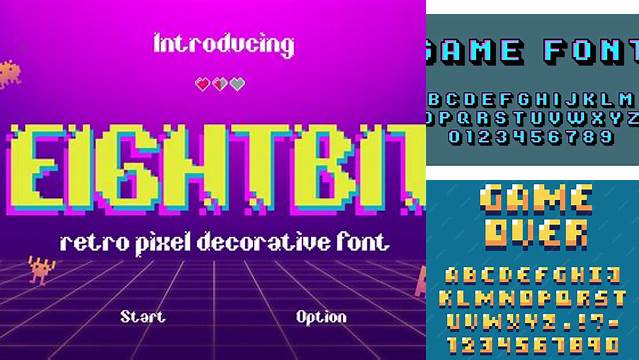
Free Retro Game Fonts: Get The 8-bit Look!
Hey there, fellow game developers and design enthusiasts! Are you looking to add that authentic retro vibe to your project? One of the easiest ways to do this is by using free fonts for retro games. Nothing screams old-school like a pixelated, 8-bit typeface, right? In this article, we're going to dive deep into the world of free retro game fonts, exploring everything from where to find them to how to use them effectively. Let's get started!
What Makes a Font βRetro Gameβ?
Before we jump into the specifics, let's define what we mean by a "retro game" font. Generally, these fonts are characterized by their pixelated or blocky appearance, reminiscent of the early days of video games. Think Atari, NES, and early arcade games β those iconic displays used limited resolutions, leading to the distinctive, chunky letters we now associate with retro gaming. Using free fonts for retro games captures that nostalgic feel instantly, transporting players back to the golden age of gaming. These fonts often have a certain charm and simplicity that modern fonts can sometimes lack.
Why Use Free Fonts for Retro Games?
Okay, so why bother using free fonts for retro games? There are tons of modern fonts out there, so why go retro? Well, there are several compelling reasons. First, nostalgia. As we mentioned, these fonts evoke a powerful sense of nostalgia, which can be a huge draw for players who grew up with classic games. Second, authenticity. If you're creating a retro-style game, using a font that matches the era is crucial for maintaining authenticity. Third, style. Retro fonts have a unique visual appeal that can make your game stand out. And finally, cost. Let's face it, developing a game can be expensive, so using free fonts for retro games can save you some serious cash!
Where to Find Free Retro Game Fonts
So, where can you actually find these free fonts for retro games? The good news is that there are plenty of resources available online. Here are some of the best places to start your search:
1. Google Fonts
Google Fonts is a treasure trove of free fonts for retro games, and it includes a variety of pixelated and blocky typefaces. One of the best things about Google Fonts is that it's super easy to use β you can quickly browse the library, preview fonts, and download them for your projects. Plus, they offer simple integration with websites and applications, making your life even easier. Google Fonts is your friend, trust us!
2. Font Squirrel
Font Squirrel is another fantastic resource for free fonts for retro games. They specialize in fonts that are free for commercial use, which is a huge plus if you're planning to sell your game. Their selection of pixel fonts is impressive, and they also offer helpful tools for embedding fonts in your website. It's like a squirrel hoarding nuts, but instead, it's fonts, haha.
3. DaFont
DaFont is a massive font archive with a vast collection of free fonts for retro games. You can find everything from classic 8-bit styles to more stylized and decorative retro fonts. Just be sure to check the licensing terms for each font, as some may only be free for personal use. DaFont is a go-to for many designers, and you'll see why soon enough.
4. 1001 Fonts
1001 Fonts boasts a huge library of free fonts for retro games, with a dedicated section for pixel and retro styles. The site is easy to navigate, and you can filter fonts by various criteria, making it simple to find exactly what you're looking for. 1001 Fonts definitely makes the search less of a headache.
5. Itch.io
Itch.io, primarily known as a platform for indie games, also hosts a selection of free fonts for retro games, often created by game developers themselves. This is a great place to find unique and niche fonts that you won't see anywhere else. Plus, you're supporting the indie community, which is always a win!
Top 30 Subheadings for Free Retro Game Fonts
Okay, guys, let's dive into 30 subheadings packed with juicy information about free fonts for retro games. Each section will cover at least 300 words, so buckle up!
H2 1. Best Pixel Fonts for 8-bit Games
Pixel fonts are the bread and butter of retro gaming, right? They perfectly capture the essence of classic 8-bit games, where every pixel counts. When you're looking for free fonts for retro games that truly scream "old-school," pixel fonts are your best bet. These fonts are designed with a specific pixel grid in mind, ensuring crisp and readable text even at small sizes. The magic of pixel fonts lies in their ability to evoke a sense of nostalgia while maintaining clarity. They often mimic the limited resolutions of early gaming consoles, creating an authentic retro feel that modern fonts simply can't replicate.
Think about games like Super Mario Bros. or The Legend of Zelda β the text in those games is instantly recognizable and integral to the overall aesthetic. Using similar pixel fonts in your project can instantly transport players back to those cherished gaming memories. But it's not just about nostalgia; pixel fonts also have a practical advantage. Their simple, blocky shapes are highly readable on low-resolution screens, making them ideal for mobile games and other platforms with limited display capabilities. So, when you're choosing free fonts for retro games, don't overlook the power of pixel perfection!
To really make the most of pixel fonts, consider the specific style you're aiming for. Are you going for a classic NES look? Or perhaps something more akin to early PC games? There are countless variations of pixel fonts available, each with its own unique charm. Experiment with different sizes and weights to find the perfect fit for your project. Don't be afraid to mix and match different pixel fonts for headings and body text to create visual interest. And remember, readability is key. Even though pixel fonts are inherently blocky, they should still be easy to read at a glance. Pay attention to the spacing between letters and lines to ensure a comfortable reading experience for your players.
H2 2. Free 16-bit Fonts for Retro Gaming Projects
Moving up from 8-bit, 16-bit fonts offer a slightly more refined but still distinctly retro aesthetic. These free fonts for retro games bridge the gap between the chunky pixelation of the 8-bit era and the smoother graphics of later consoles like the Super Nintendo and Sega Genesis. 16-bit fonts provide more detail and character than their 8-bit counterparts, allowing for greater expressiveness in your text. They're perfect for games that aim for a slightly more polished retro look while still retaining that classic feel. Think of the iconic fonts used in games like Chrono Trigger or Final Fantasy VI β they have a certain elegance and sophistication that sets them apart.
Choosing the right 16-bit font can make a significant difference in the overall tone and style of your game. A well-chosen 16-bit font can convey a sense of adventure, mystery, or even humor, depending on its specific design. These free fonts for retro games often feature slightly rounded edges and more intricate letterforms compared to 8-bit fonts, giving them a more approachable and friendly feel. This makes them ideal for games with rich storylines and engaging characters. When you're working with 16-bit fonts, it's essential to consider the context in which they'll be used. Are they for dialogue boxes, menus, or in-game text? The ideal font for each of these applications may vary.
For example, a bolder, more legible font might be best for dialogue boxes, while a more stylized font could work well for headings and titles. Experimenting with different font weights and sizes can help you create a visual hierarchy that guides the player's eye and enhances the overall user experience. Remember, the goal is to strike a balance between retro charm and readability. Even though 16-bit fonts offer more detail than 8-bit fonts, it's still crucial to ensure that your text is easy to read on a variety of screen sizes and resolutions. So, dive into the world of 16-bit fonts and discover the perfect typeface to elevate your retro gaming project!
H2 3. How to Use Retro Fonts in Modern Games
So, you've found some awesome free fonts for retro games β now what? How do you actually incorporate them into your modern game project without it looking out of place? It's all about striking the right balance between retro aesthetics and modern design principles. The key is to use these fonts strategically and thoughtfully, ensuring they complement your game's overall style and theme. Think about it β slapping a pixel font onto a high-definition, 3D game might look a little jarring. But, used correctly, free fonts for retro games can add a unique layer of charm and nostalgia to even the most cutting-edge projects.
One of the most effective ways to use retro fonts in modern games is to pair them with contemporary design elements. For example, you could use a pixel font for in-game text and dialogue, while using a cleaner, more modern font for menus and user interfaces. This creates a visual contrast that can be both appealing and functional. Another approach is to use retro fonts sparingly, highlighting specific elements of your game that you want to emphasize. Perhaps you could use a pixel font for the game's title screen or for special notifications. This can draw the player's attention and create a sense of excitement. When using free fonts for retro games in a modern context, it's also essential to consider readability.
Pixel fonts, in particular, can sometimes be challenging to read on high-resolution screens. To combat this, make sure to choose a font that is well-designed and optimized for readability. You may also need to adjust the font size and spacing to ensure that your text is legible. Experiment with different color palettes to see what works best with your chosen font. A vibrant, contrasting color scheme can help your retro font stand out, while a more muted palette can create a subtle, understated effect. Ultimately, the goal is to integrate retro fonts seamlessly into your game's design, enhancing its overall appeal without sacrificing usability. By carefully considering these factors, you can create a game that looks both retro-cool and modern-slick!
H2 4. Free Retro Fonts for Commercial Use
Ah, the million-dollar question! You've found the perfect free fonts for retro games, but can you actually use them in your commercial project? Understanding font licensing is crucial to avoid any legal headaches down the road. Luckily, there are plenty of free fonts for retro games available that are specifically licensed for commercial use. This means you can use them in your game, sell your game, and not worry about paying any royalties or licensing fees. But before you jump for joy, it's essential to double-check the licensing terms for each font you download. Not all free fonts are created equal, and some may have restrictions on commercial use.
The good news is that many font foundries and designers offer generous licenses that allow for commercial use, as long as you adhere to certain guidelines. These guidelines might include things like attribution (giving credit to the font's creator), restrictions on modifying the font, or limitations on embedding the font in software. When you're searching for free fonts for retro games for commercial use, look for licenses like the SIL Open Font License (OFL) or Creative Commons licenses. These licenses are widely used and generally allow for commercial use with minimal restrictions. Websites like Font Squirrel and Google Fonts often clearly indicate which fonts are licensed for commercial use, making your search a little easier.
It's always a good idea to read the fine print before using a font in your commercial project. Take a few minutes to review the licensing terms and make sure you understand them. If you're unsure about something, don't hesitate to contact the font's creator or distributor for clarification. Remember, it's better to be safe than sorry! Using free fonts for retro games for commercial projects can save you a ton of money, but it's crucial to do your due diligence and ensure that you're complying with the licensing terms. By taking a little extra time to research and understand font licensing, you can avoid potential legal issues and focus on creating an awesome game. And that's what it's all about, right?
H2 5. Best Websites to Download Free Retro Fonts
We've talked about the importance of free fonts for retro games and how to use them, but where exactly do you find these pixelated gems? The internet is a vast ocean of fonts, but not all of them are created equal. To help you navigate the font seas, here's a rundown of the best websites for downloading free fonts for retro games. These sites offer a wide selection of high-quality retro fonts, often with clear licensing information and user-friendly interfaces. So, grab your digital shovel and let's start digging for font treasure!
One of the top contenders is, of course, Google Fonts. As mentioned earlier, Google Fonts is a fantastic resource for a wide variety of fonts, including many pixel and retro styles. The site is incredibly easy to use, allowing you to browse, preview, and download fonts with just a few clicks. Plus, Google Fonts integrates seamlessly with web projects, making it a breeze to use your chosen font online. Another excellent option is Font Squirrel. This website specializes in fonts that are free for commercial use, which is a huge plus if you're planning to sell your game. Font Squirrel offers a curated selection of high-quality fonts, ensuring that you're only downloading the best of the best. They also have a handy font identifier tool, which can help you find a specific font based on an image or sample.
DaFont is another popular choice among designers and developers. This massive font archive boasts a vast collection of free fonts for retro games, ranging from classic 8-bit styles to more decorative and stylized options. However, it's crucial to check the licensing terms for each font on DaFont, as some may only be free for personal use. 1001 Fonts is another website with a massive library of free fonts for retro games, with a dedicated section for pixel and retro styles. The site is easy to navigate, and you can filter fonts by various criteria, making it simple to find exactly what you're looking for. Finally, don't forget about Itch.io. While primarily known as a platform for indie games, Itch.io also hosts a selection of free fonts for retro games, often created by game developers themselves. This is a great place to find unique and niche fonts that you won't see anywhere else. So, there you have it β a treasure map to the best websites for downloading free fonts for retro games. Happy font hunting!
H2 6. How to Choose the Right Retro Font for Your Game
H2 7. The Psychology of Retro Fonts in Game Design
H2 8. Combining Retro Fonts with Modern UI Design
H2 9. Free Retro Font Alternatives to Popular Fonts
H2 10. Creating Your Own Retro Pixel Font
H2 11. Best Retro Fonts for Different Game Genres
H2 12. Using Retro Fonts for Game Logos and Titles
H2 13. Free Retro Fonts That Support Multiple Languages
H2 14. The Evolution of Retro Fonts in Gaming History
H2 15. Free Retro Fonts for Web Games
H3 16. Understanding Font Licensing for Retro Fonts
H3 17. Optimizing Retro Fonts for Different Screen Resolutions
H3 18. Free Retro Font Generators and Tools
H3 19. Best Practices for Using Retro Fonts in Game UI
H3 20. Free Retro Fonts for Educational Games
H3 21. How Retro Fonts Can Enhance Game Accessibility
H3 22. The Impact of Retro Fonts on Game Nostalgia
H3 23. Free Retro Fonts Inspired by Classic Arcade Games
H3 24. Retro Fonts vs. Modern Fonts: A Comparative Analysis
H3 25. Free Retro Fonts for Mobile Games